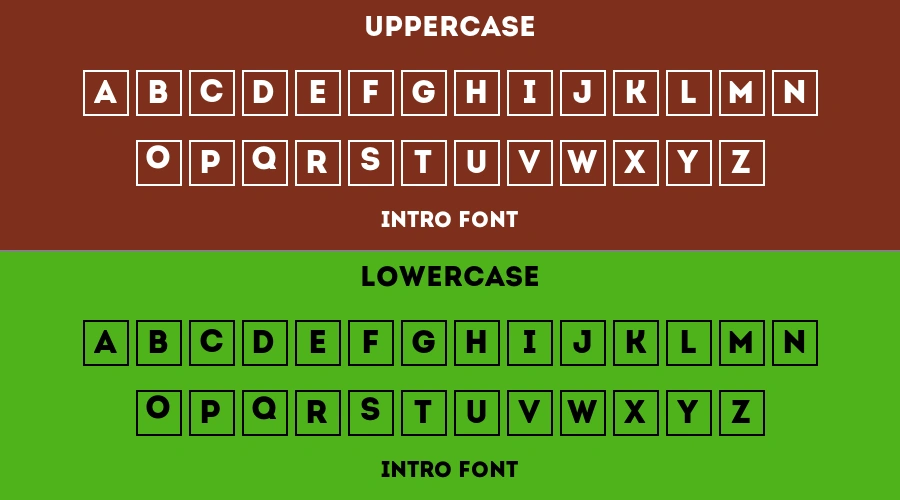
About Intro Font
When typographic excellence matters most, Intro Font delivers through its thoughtful blend of transitional forms and typographic color. Specially crafted for film titles, it offers the precision and visual authority required for sophisticated design work. Every detail serves a purpose.
The character set showcases thoughtful details like expressive energy alongside functional historical alternates. This proves especially valuable in section headers, where small text rendering directly influences results. Particular attention was paid to terminal style and cultural relevance during development.